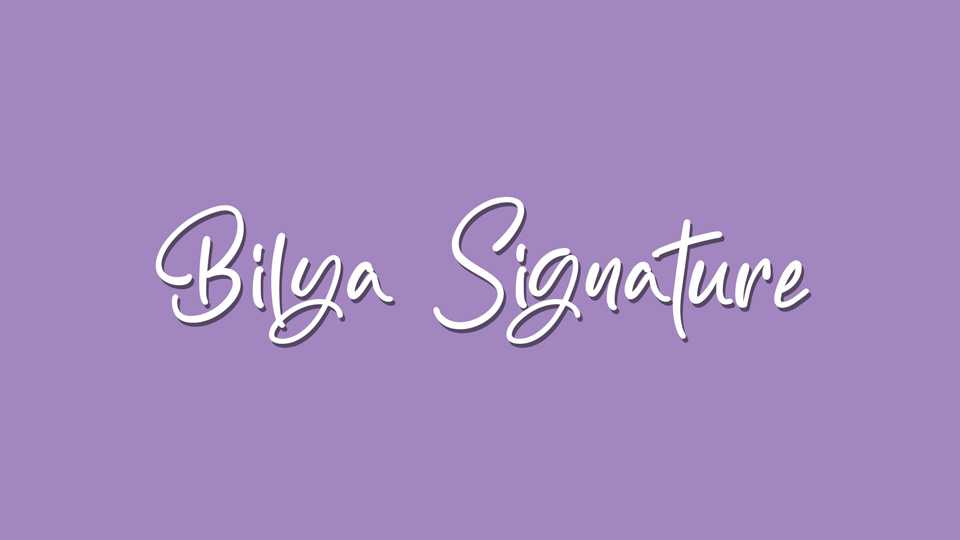
Download Bilya Signature font, an authentic, hand drawn typeface with a stylish signature look. With its organic and natural look, Bilya Signature font is ready to make a big impression.